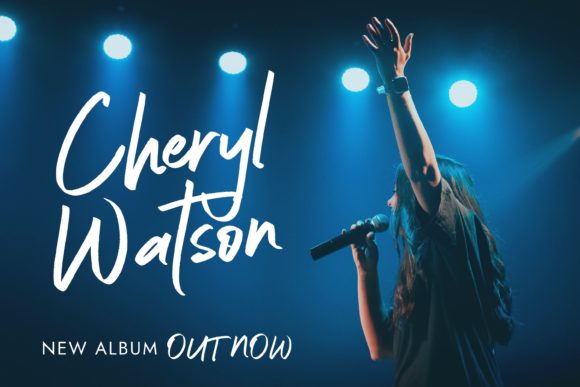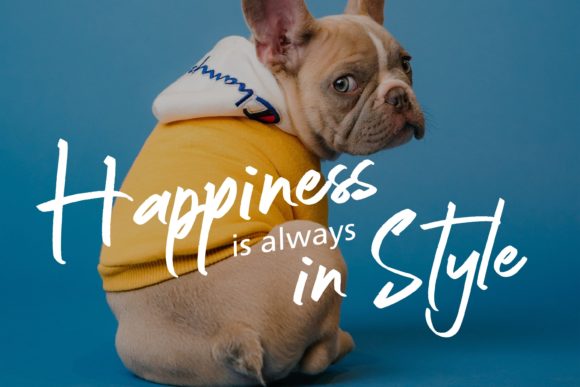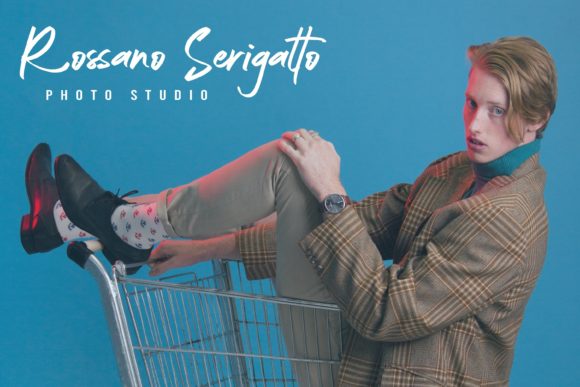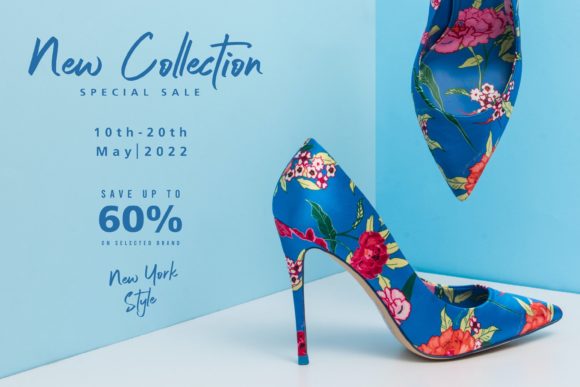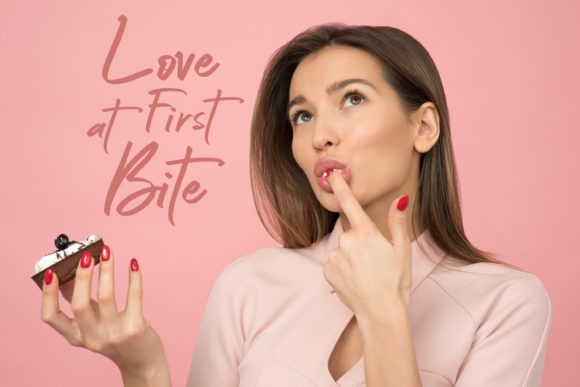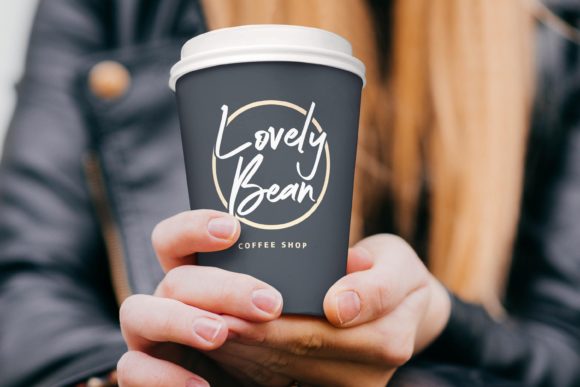
Discover the Elegance of Besthari Font: Elevate Your Designs with a Personalized Touch
In the world of typography, fonts play a crucial role in conveying the tone and personality of a design. For crafters and designers seeking a unique and elegant handwritten font to add a personalized touch to their creations, Besthari Font is an exceptional choice. This versatile font is perfect for a variety of designs, including wedding invitations, thank you cards, weddings, greeting cards, logos, and more.
What Makes Besthari Font Stand Out?
Besthari Font is a distinctive and refined handwritten font that exudes elegance and sophistication. Its unique characteristics make it an ideal selection for designers and crafters looking to infuse their work with a personal and luxurious feel. Here are some features that set Besthari Font apart:
- Handwritten Elegance: Besthari Font boasts a beautiful, handcrafted appearance that adds a touch of warmth and personality to any design.
- Versatility: This font is suitable for a wide range of applications, from wedding stationery and greeting cards to logos and branding materials.
- Readability: Despite its elegant and cursive nature, Besthari Font maintains excellent readability, making it perfect for both short phrases and longer texts.
- Unique Character: The font’s distinctive style ensures that your designs stand out from the crowd, offering a fresh alternative to more traditional fonts.
Uses of Besthari Font
The versatility of Besthari Font makes it an invaluable addition to any designer’s toolkit. Here are some popular uses for this elegant font:
- Wedding Invitations and Stationery: Add a touch of romance and sophistication to wedding invitations, save-the-date cards, and other wedding-related designs.
- Greeting Cards: Whether it’s a birthday, anniversary, or holiday greeting, Besthari Font can help you create cards that are both beautiful and meaningful.
- Logos and Branding: For businesses looking for a logo or brand identity that conveys elegance and personality, Besthari Font can be a great choice.
- Thank You Cards and Notes: Personalize your thank you cards and notes with a font that feels both luxurious and heartfelt.
Tips for Using Besthari Font Effectively
To make the most of Besthari Font, consider the following tips:
- Pair with Complementary Fonts: For designs that require more than one font, pair Besthari Font with clean, sans-serif fonts to create a balanced look.
- Adjust Size and Color: Experiment with different sizes and colors to ensure the font complements your overall design.
- Use for Headlines and Accents: Besthari Font works beautifully as a headline or accent font, adding a personalized touch to your designs.
Besthari Font is a unique and elegant handwritten font that can elevate your designs with its personalized style. Whether you’re a designer or crafter, this versatile font offers endless possibilities for creating beautiful and distinctive work. From wedding invitations and greeting cards to logos and branding materials, Besthari Font is sure to become a favorite in your collection.
So why settle for ordinary fonts when you can add a touch of elegance and personality to your designs? Explore the possibilities of Besthari Font today and discover how it can transform your creative projects.